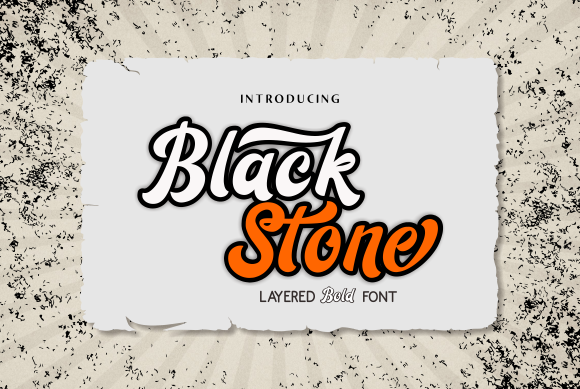
Black Stone Font: A Journey Through Enigmatic Elegance and Daring Creativity
In the realm of digital artistry, fonts are the unsung heroes, silently weaving their magic to transform words into visual masterpieces. Among this pantheon of typographic wonders, Black Stone Font stands tall, an exquisite script font poised to ignite your creative spirit and transport your designs to new heights of sophistication and charm.
Black Stone Font: A Brush with Adventure
Black Stone Font is the brainchild of Malindo Creative, a visionary foundry renowned for crafting fonts that resonate with emotion and authenticity. This exceptional font draws inspiration from the untamed spirit of adventure, embodying the essence of exploration and discovery. Its bold strokes and dynamic curves evoke a sense of wanderlust, inviting you to embark on a creative odyssey where imagination knows no bounds.
Black Stone Font: The Perfect Canvas for Your Creative Expressions
With its captivating handwritten style, Black Stone Font possesses an organic and effortless appeal that lends itself seamlessly to a myriad of design projects. Whether you're crafting logos, branding materials, social media graphics, invitations, or any other form of visual communication, this font has the versatility to elevate your designs and leave a lasting impression.
Black Stone Font: A Symphony of Visual Delights
Black Stone Font's repertoire of glyphs and swashes is a treasure trove of typographic artistry, easily accessible thanks to its PUA encoding. Unleash your creativity and explore a world of infinite possibilities, where each character dances across the screen with grace and elegance. Experiment with letter combinations, create breathtaking monograms, or let your imagination run wild as you craft intricate typographic compositions.
Black Stone Font: The Catalyst for Unforgettable Designs
Black Stone Font is not merely a collection of letters; it's a gateway to a world where creativity flourishes and ideas take flight. Embrace the adventurous spirit embedded within this font, and let it infuse your designs with a touch of daring authenticity. Whether you're a seasoned designer or just starting your creative journey, Black Stone Font is your trusted companion, ready to guide you towards typographic excellence.